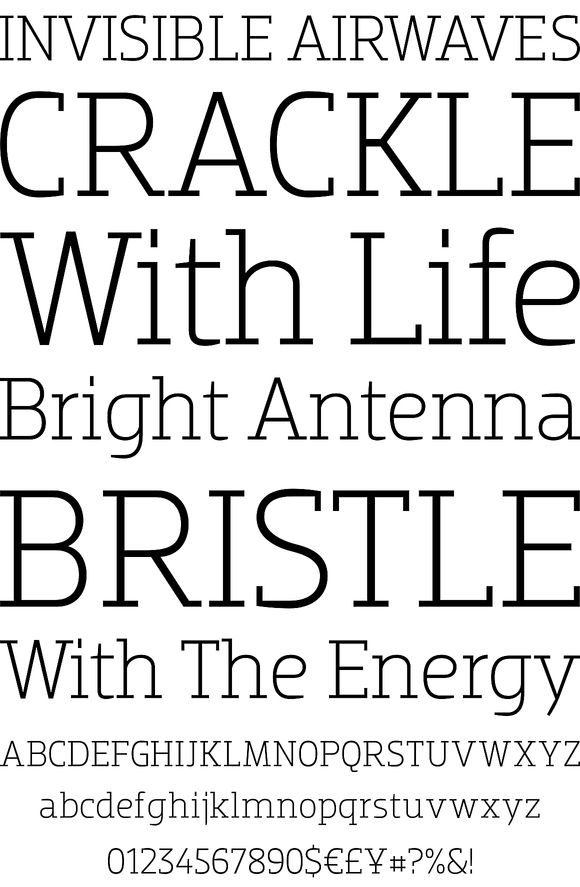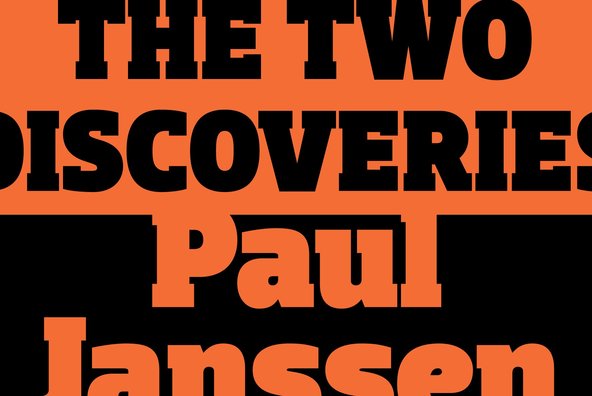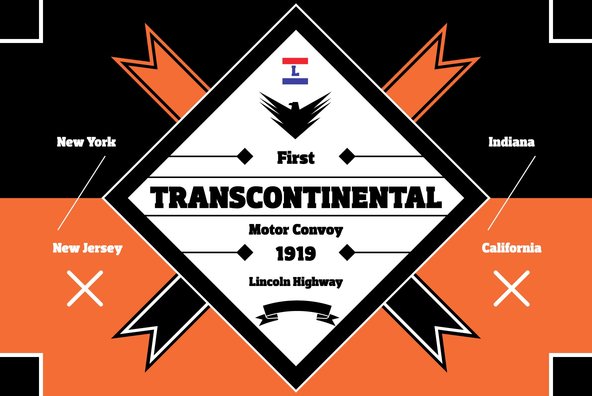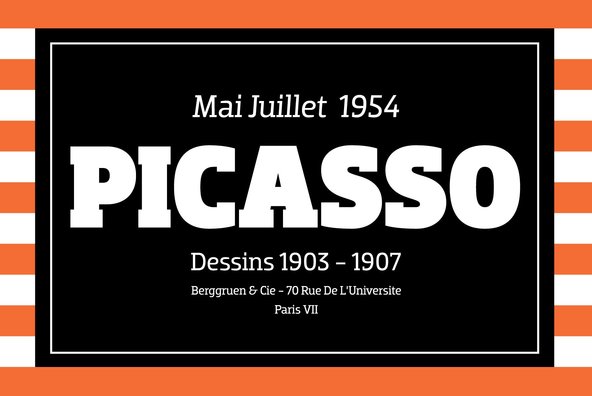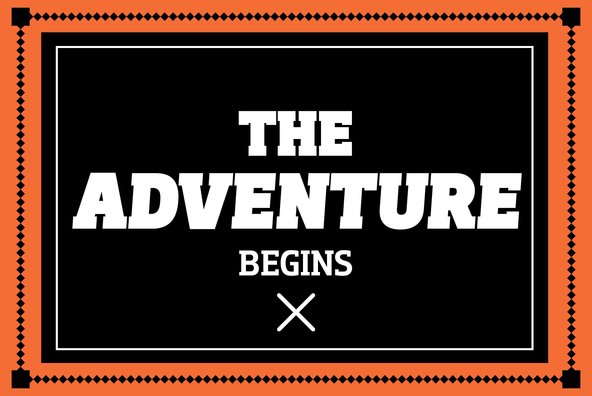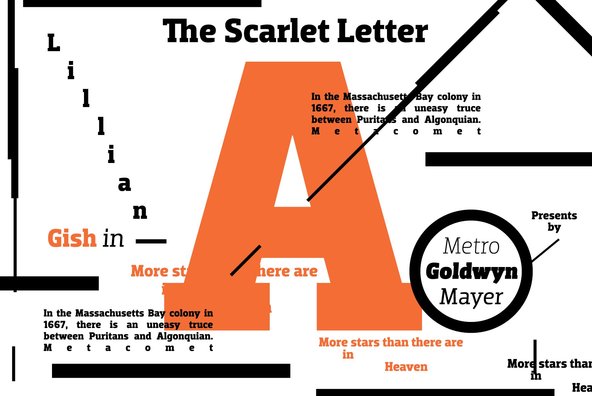
Dobra is a very geometric and robust typeface with Sans and Slab Serif companions, specially suited for magazines and newspapers, although it works great as a corporate typeface.
With five weights ranging from Light to Black with matching italic, available in both styles this highly readable typeface is full of OpenType features such as Small Caps, Tabular Figures, Central Europe characters and Historical Figures, among others.